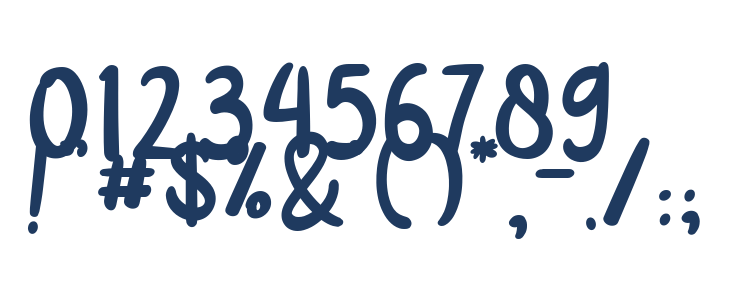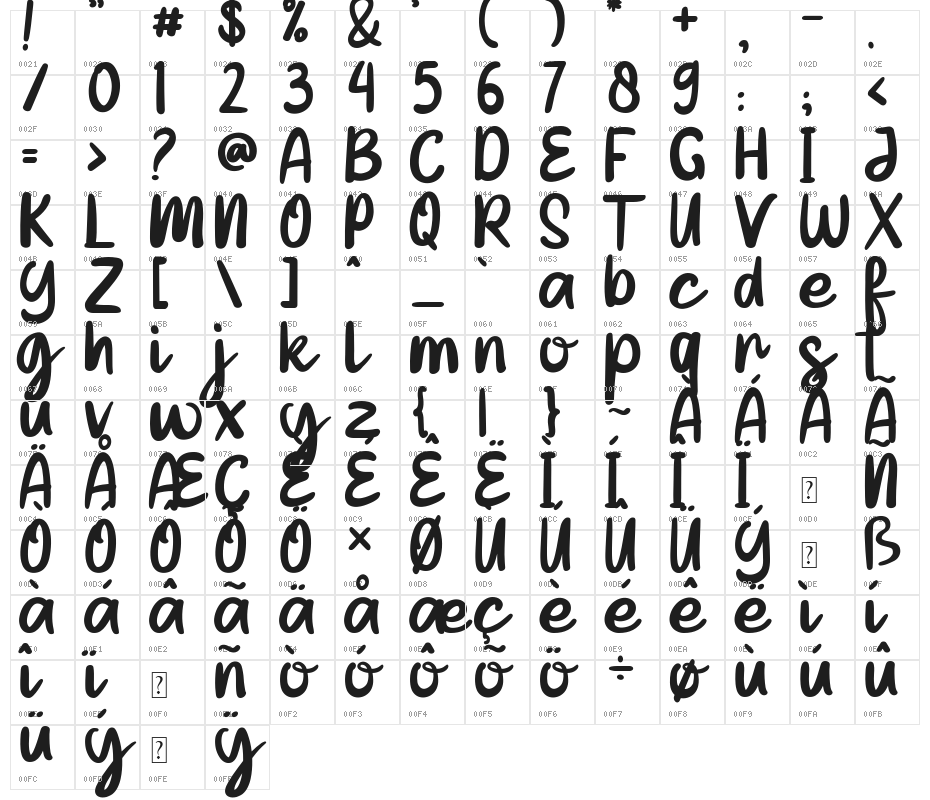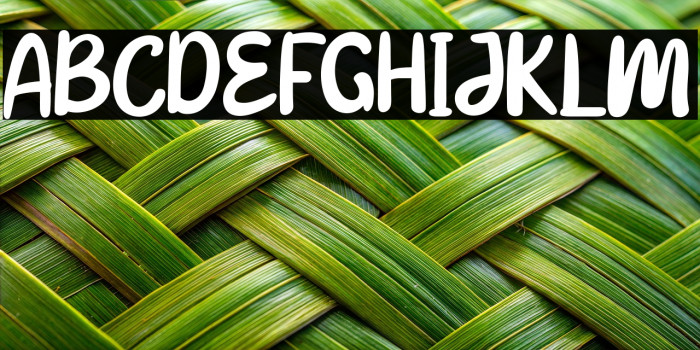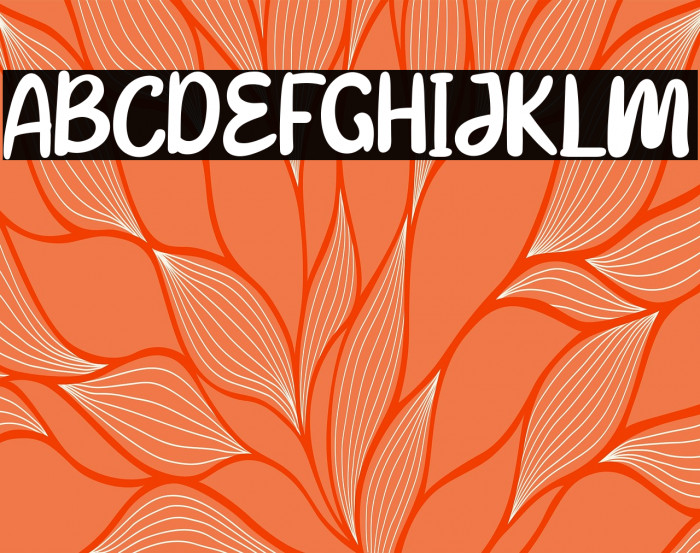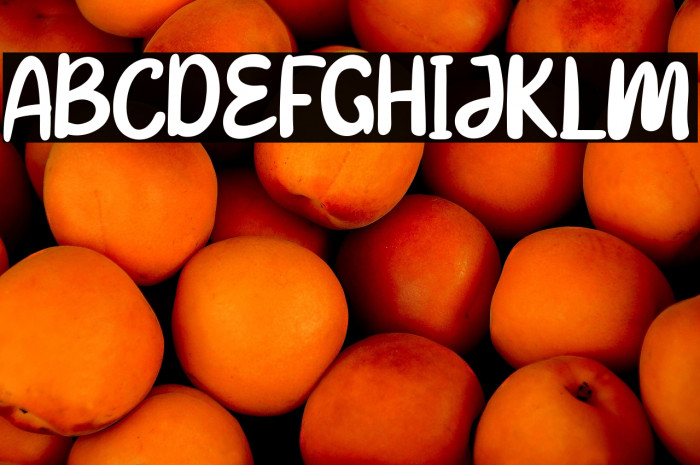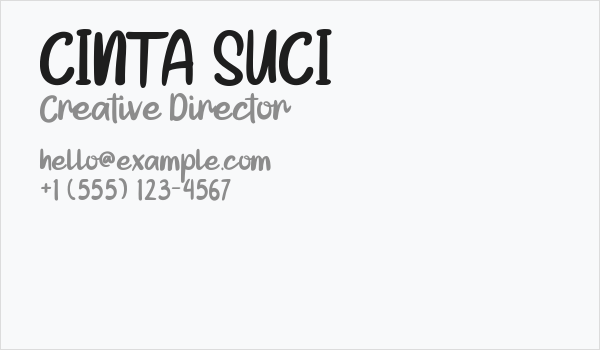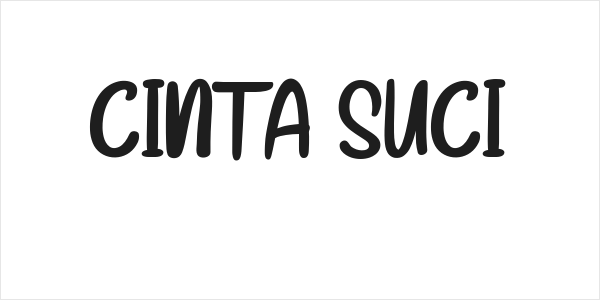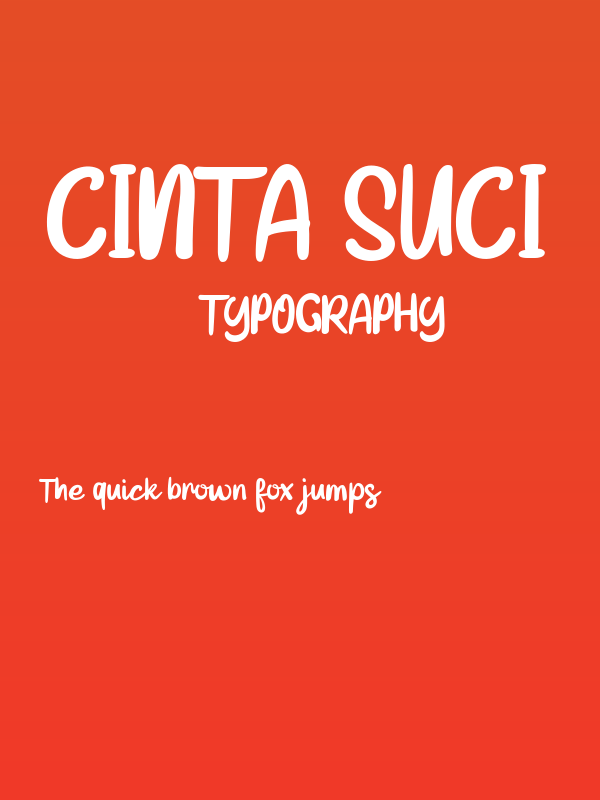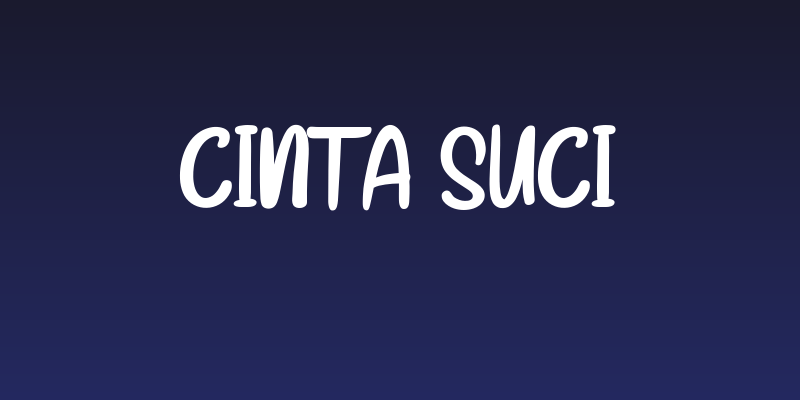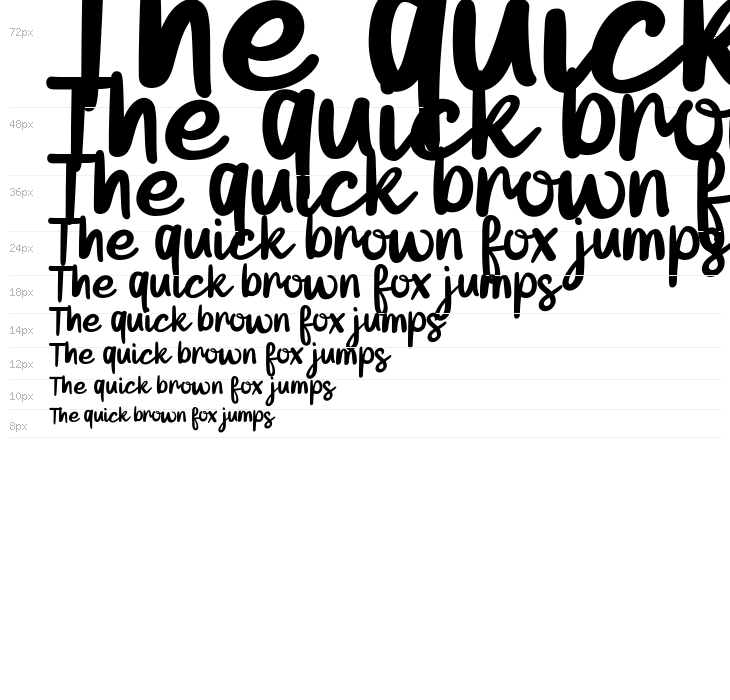
CINTA SUCI Font
CINTA SUCI Description
This playful and bold font features a handwritten style with a smooth, flowing appearance. The letters are rounded and slightly irregular, giving it a casual and friendly vibe. The uppercase and lowercase letters maintain a consistent style, with the lowercase letters showing a bit more flair and personality. The numbers are clear and easy to read, matching the overall aesthetic of the alphabet. Special characters are included, maintaining the same playful and approachable design. This font is perfect for projects that require a personal touch, such as invitations, greeting cards, or playful branding.